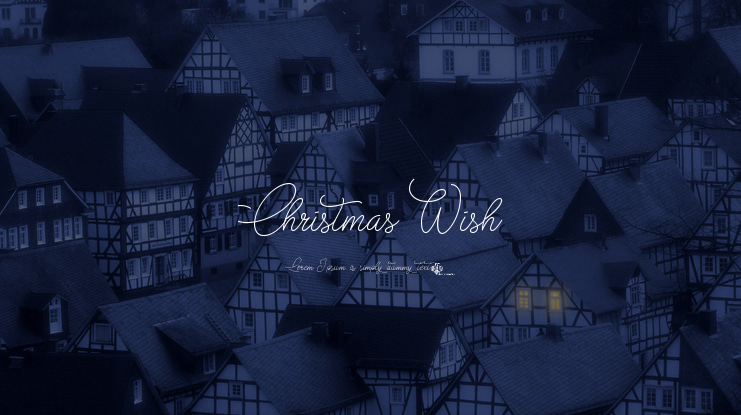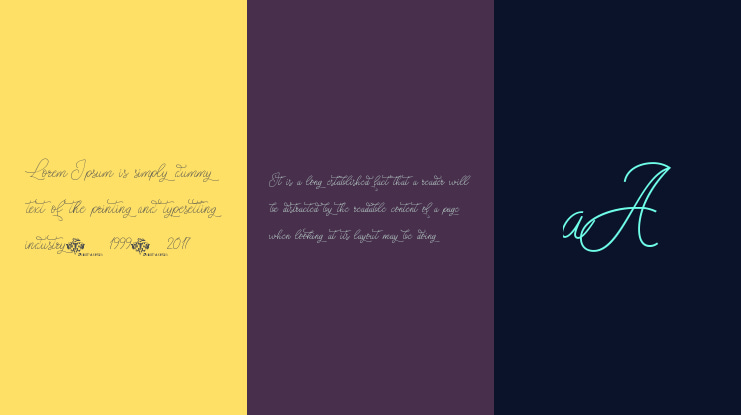
Christmas Wish Font
CHRISTMAS WISH is a cursive monoline script that has a calligraphy version as well.
Full version contains terminals and ligatures for better connection and more natural flow, Eastern and Western European language accented characters.